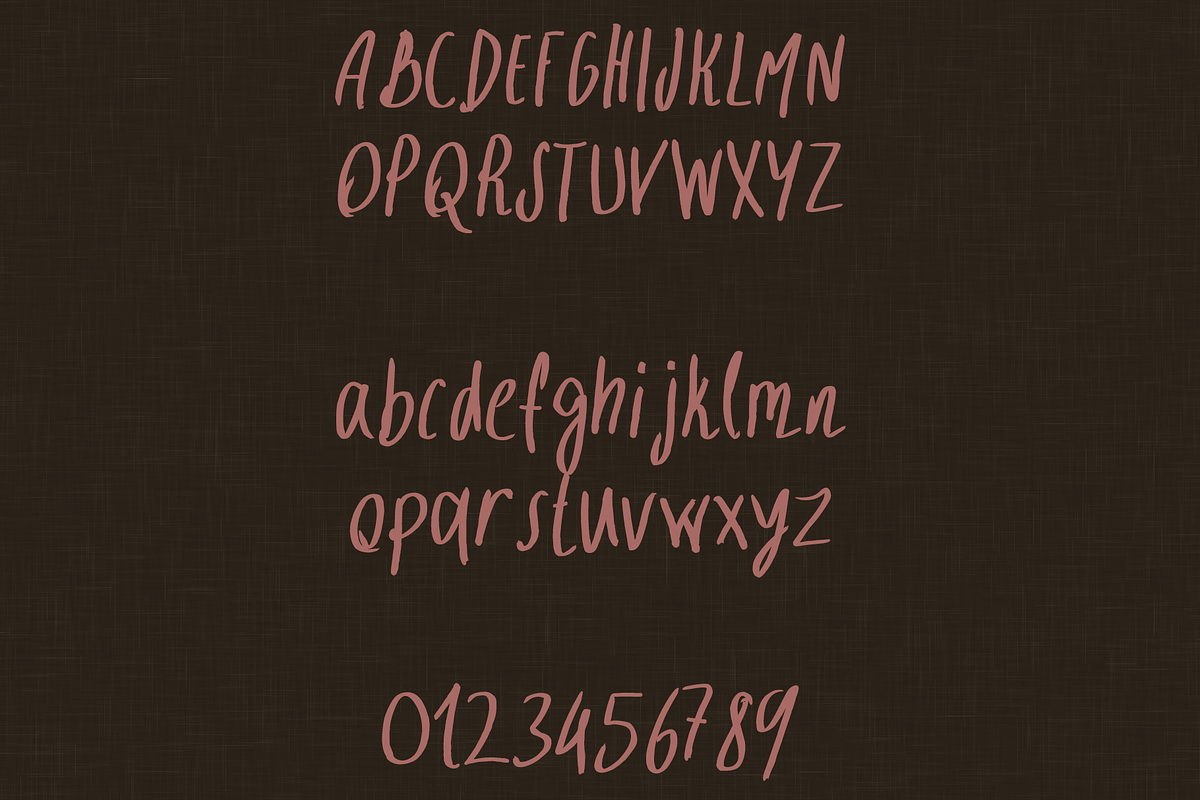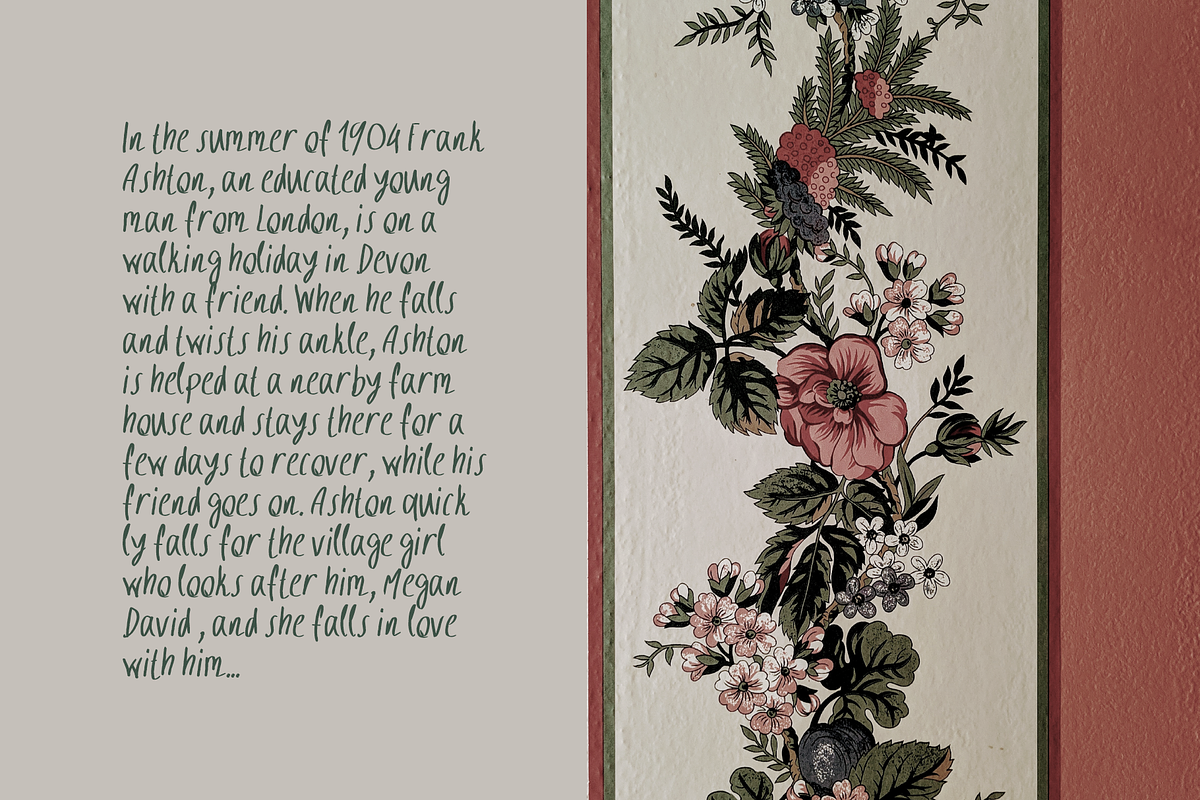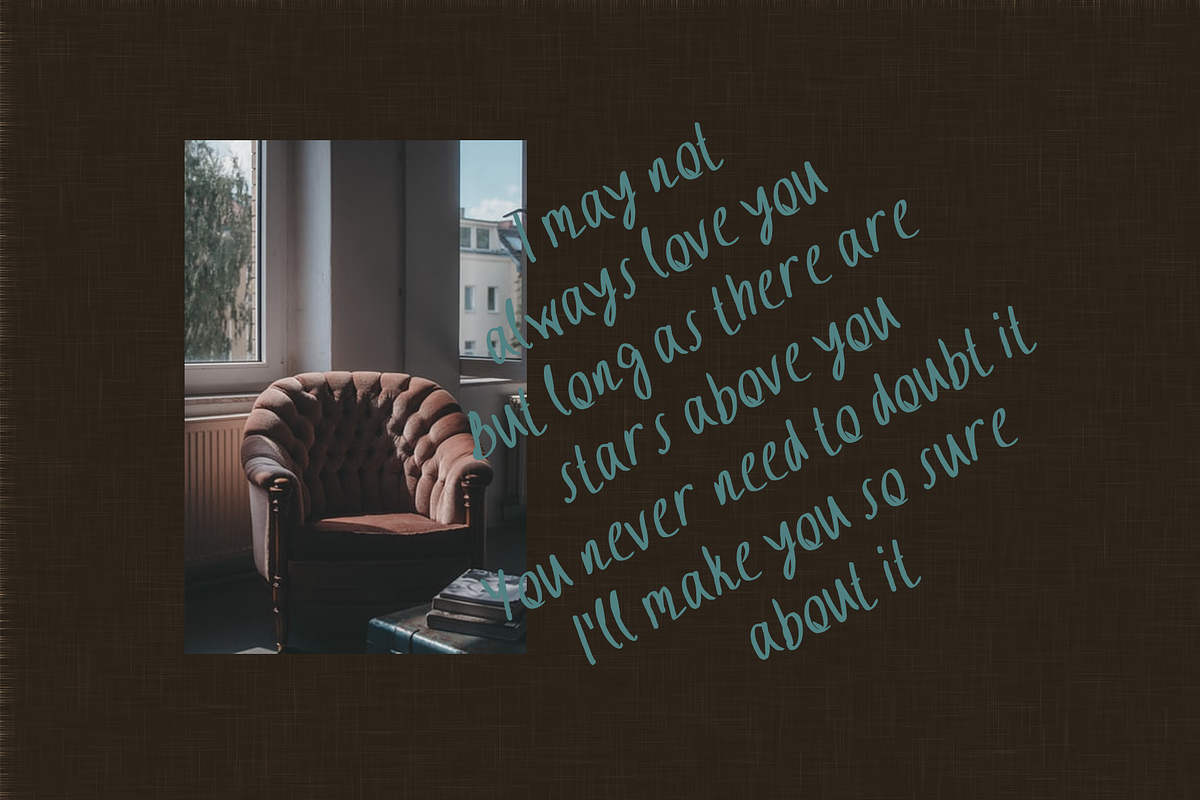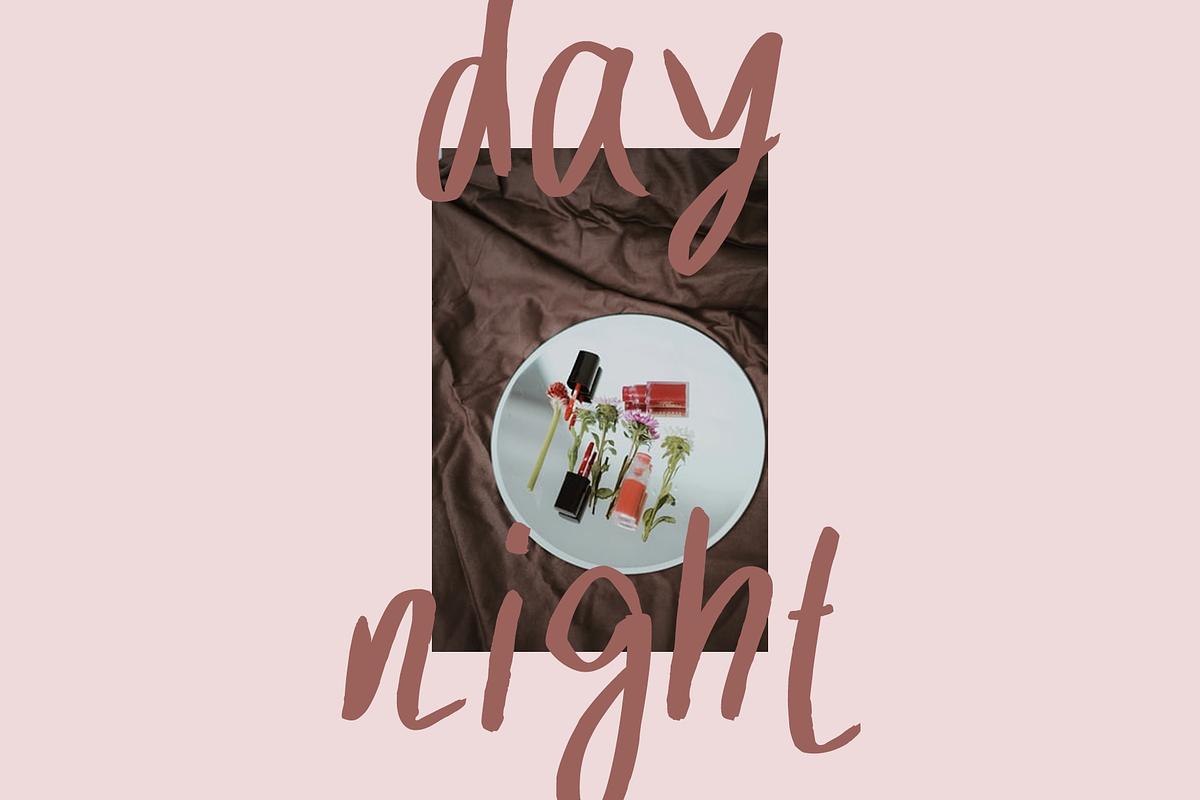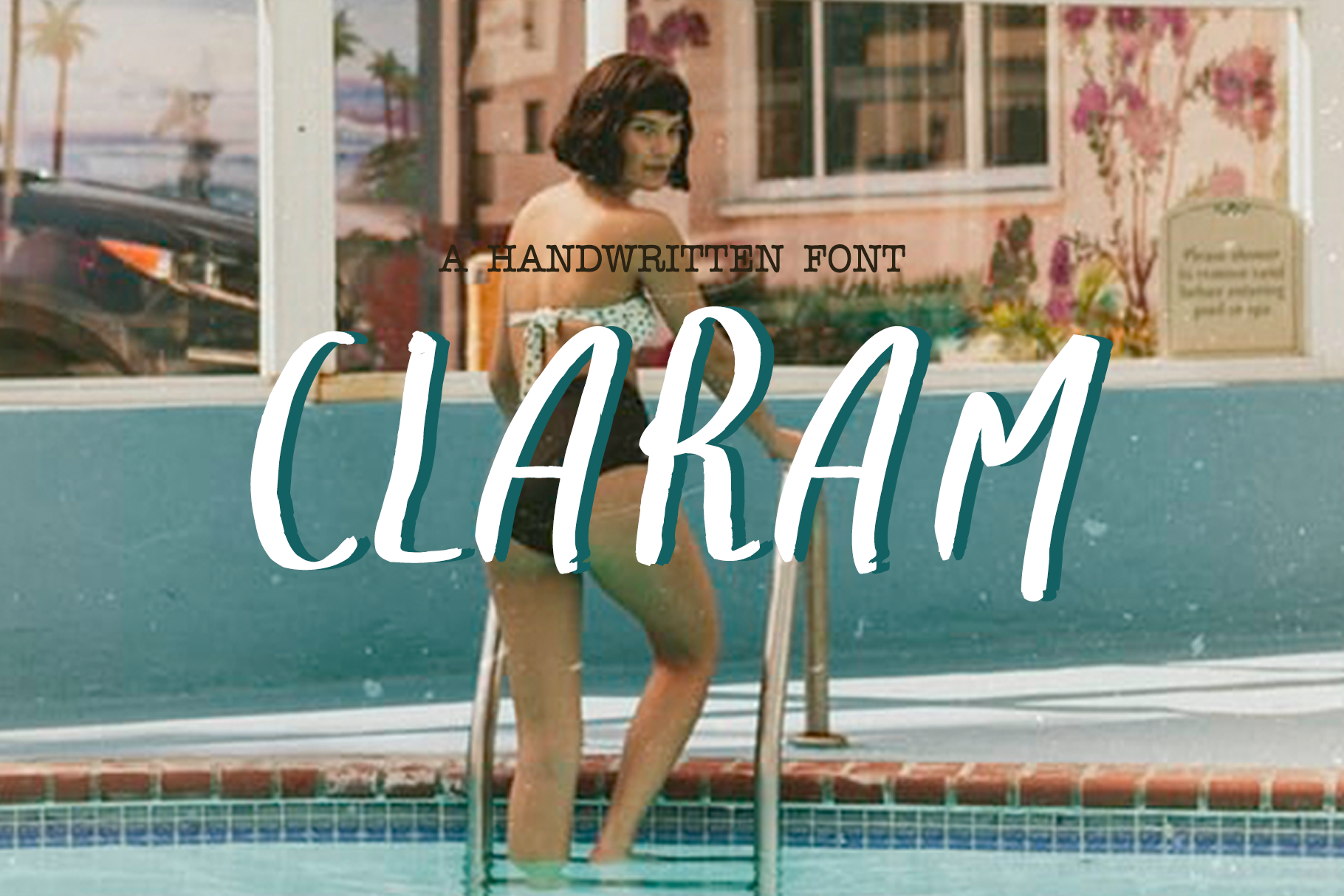
Claram Font
Claram is graceful, but also casual. Knowledgeable and artistic, but not too imposing. It has natural curves as in handwriting but it maintains legibility. Claram is a very useful font that could be used in many forms and styles. It would work best for product packaging, glossy magazine work, and book covers.